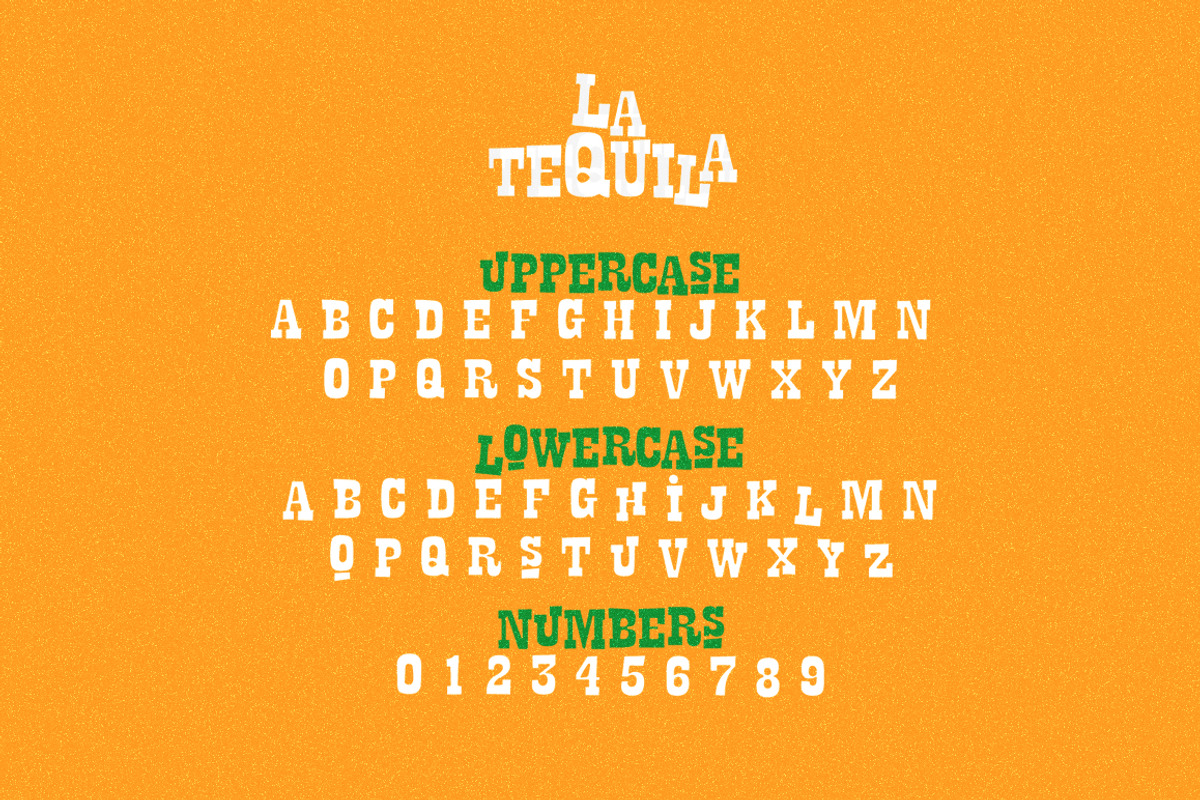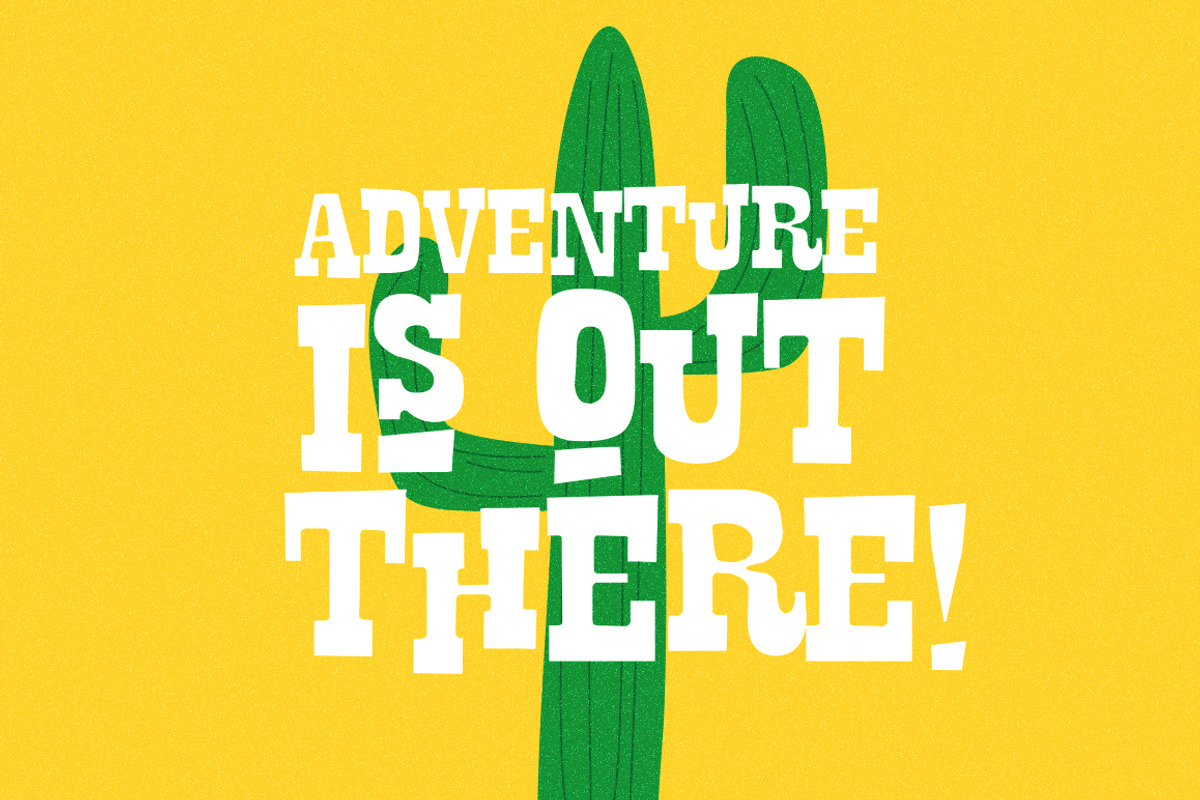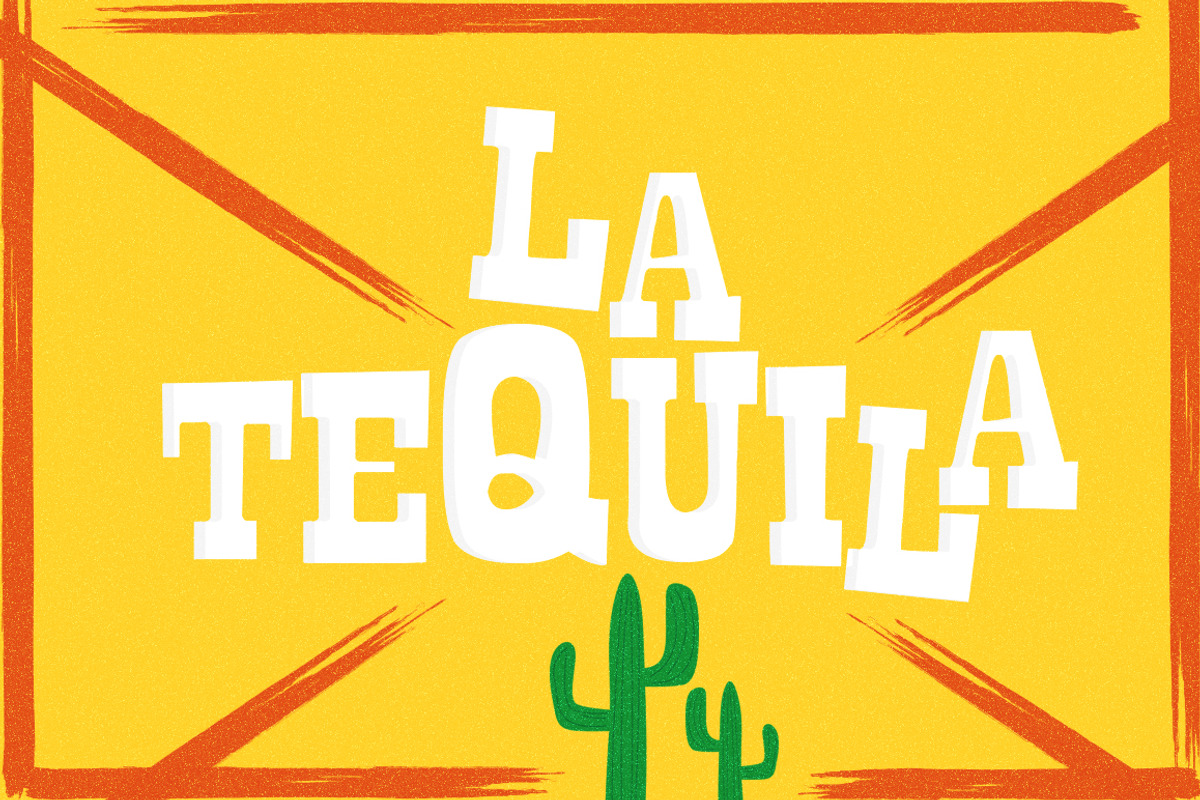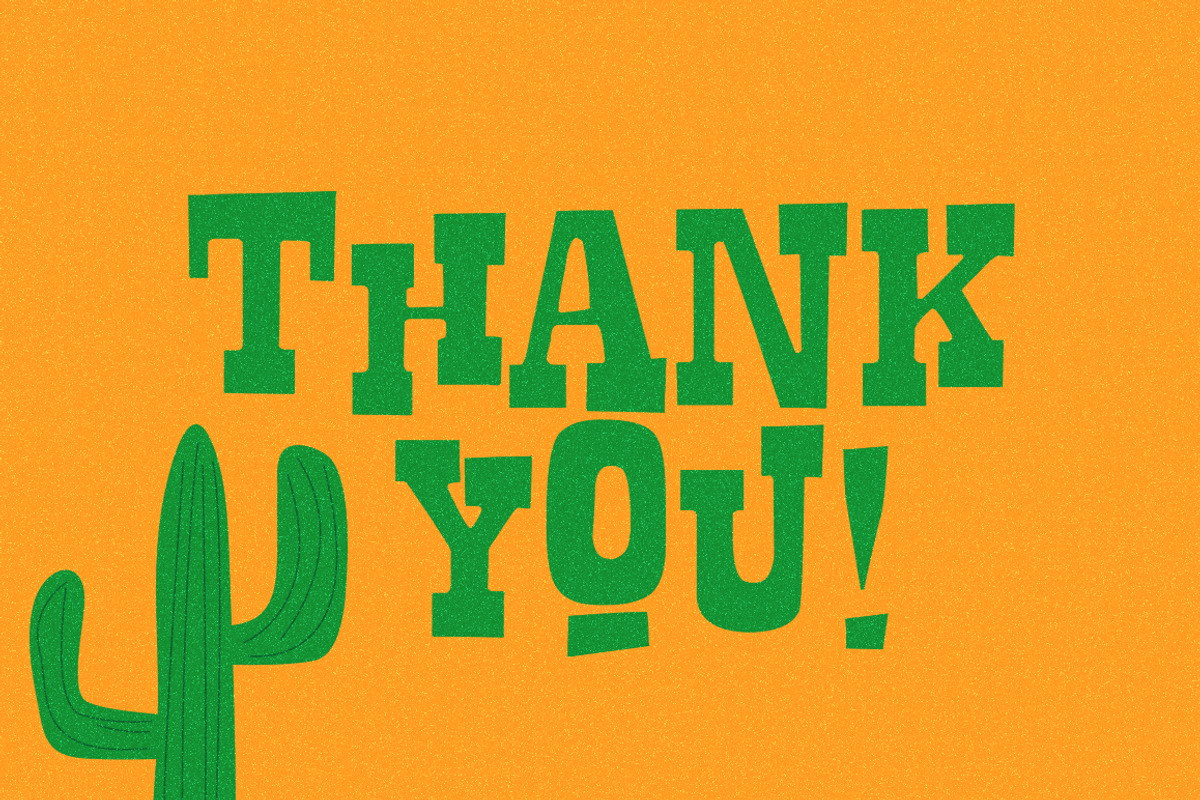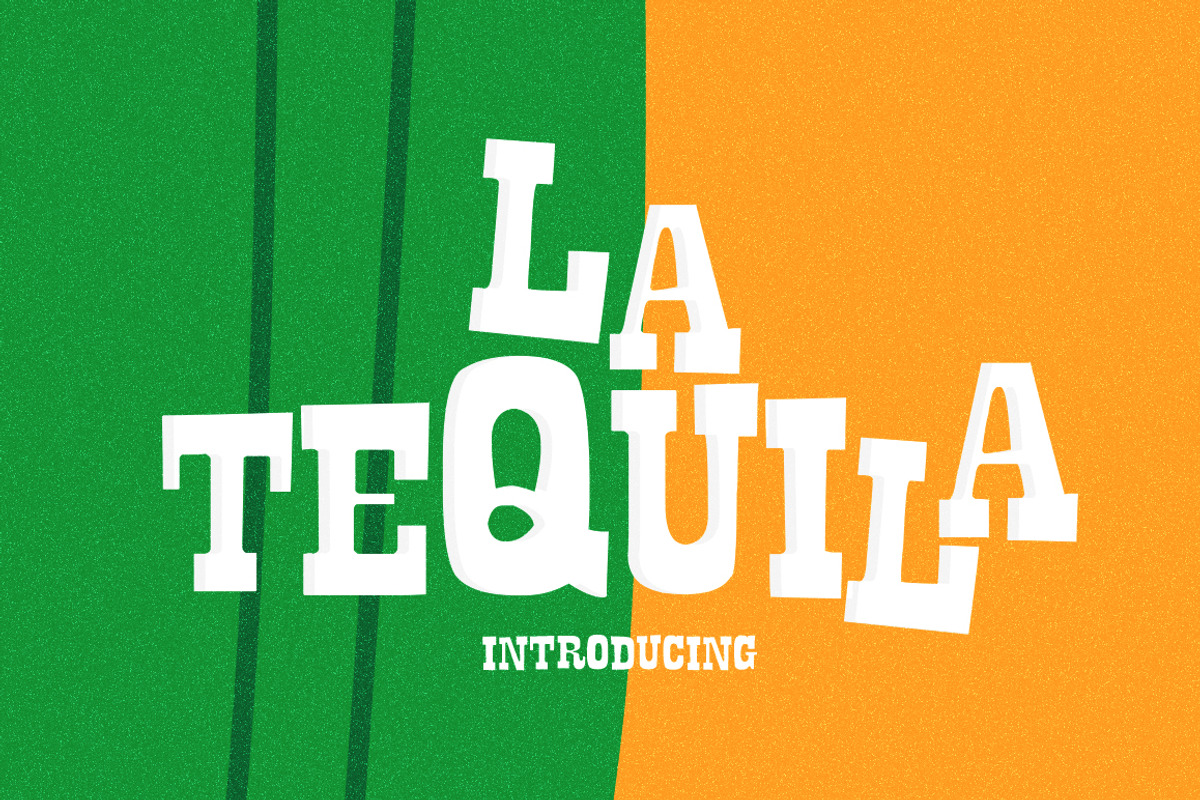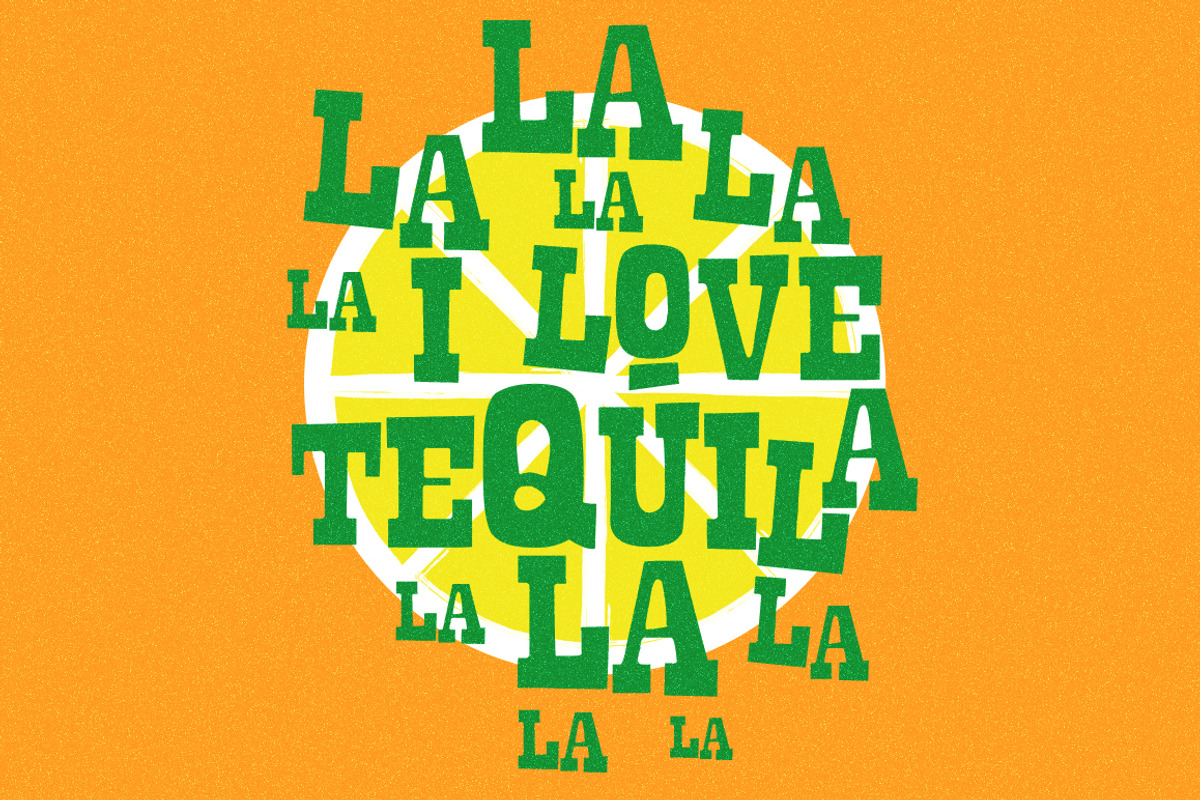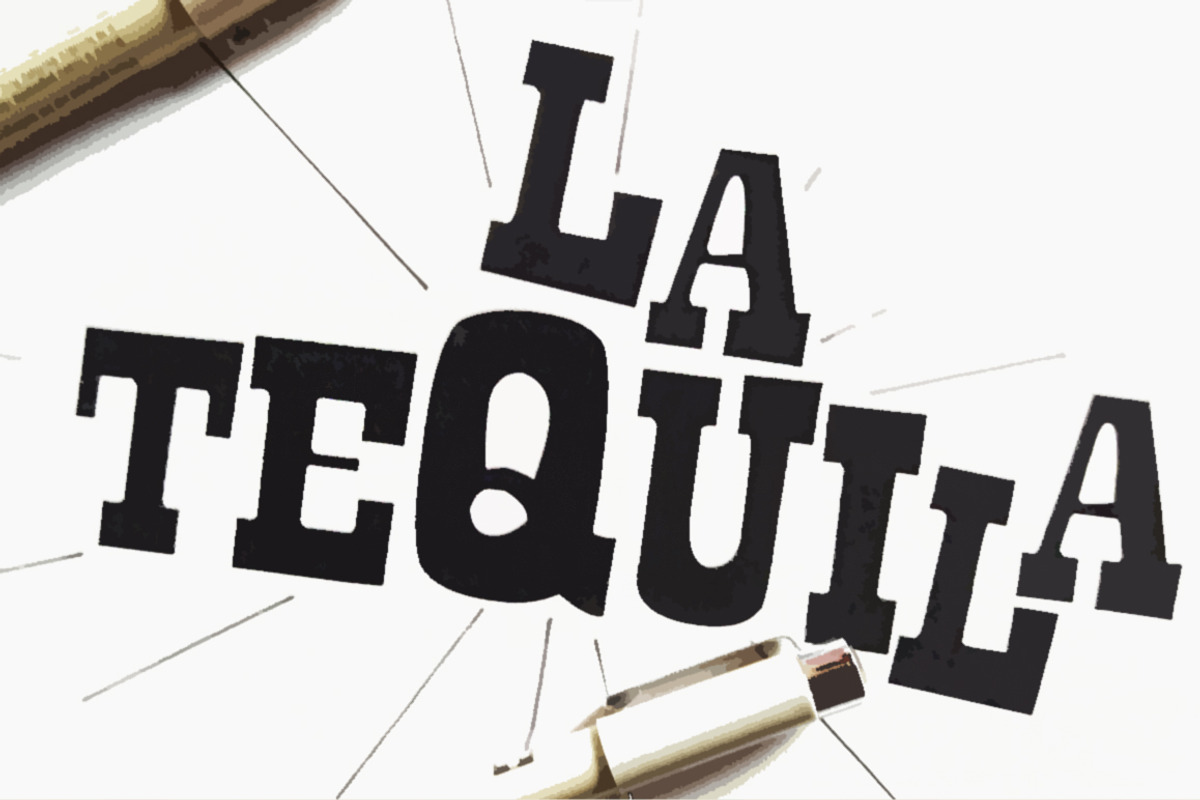
La Tequila Typeface
Characteristic of this fonts will act to create an ambience of fun.
The font can be used for many purposes but looks great when put on signs, shirts or cards. Also, it works perfect on fresh summer theme designs.